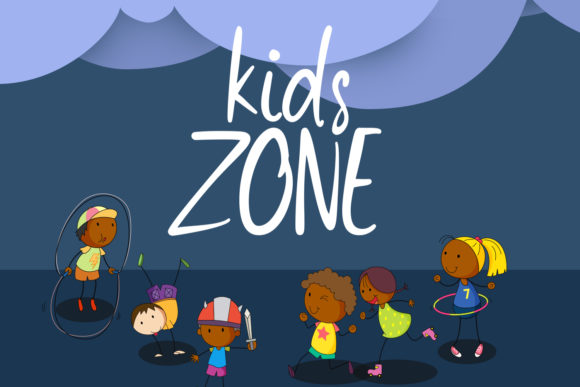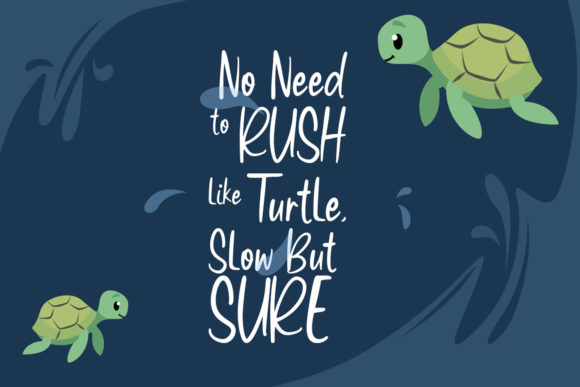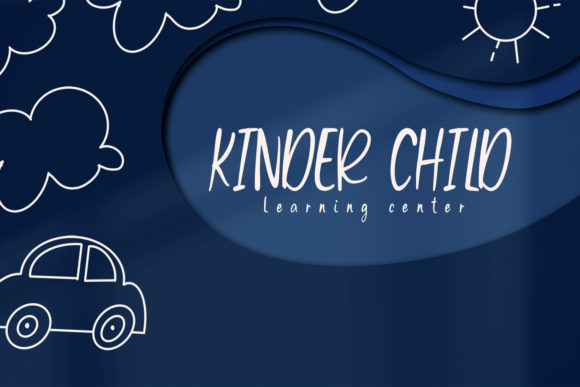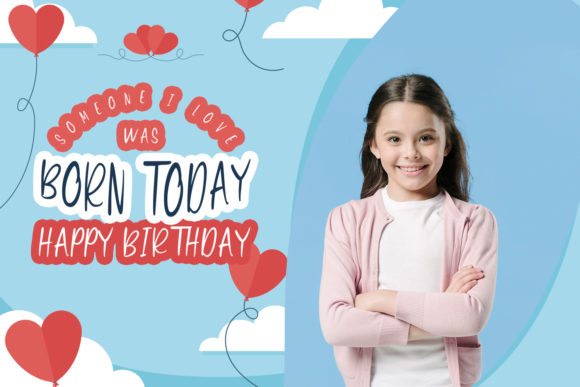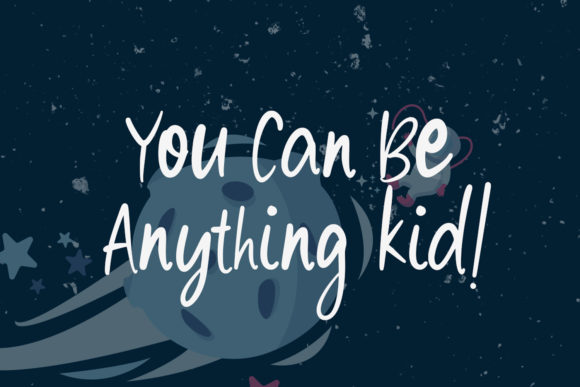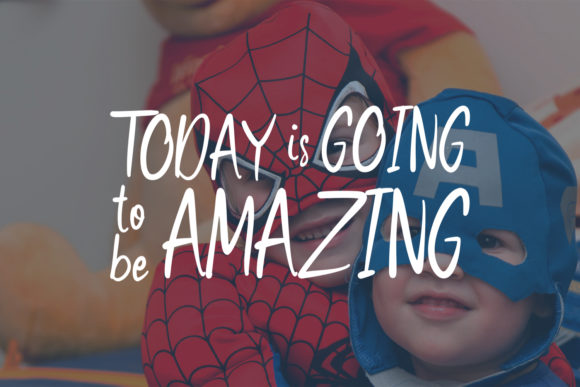
Introduction to Layer Kidos Font
Layer Kidos is a sweet and friendly display font.
Get creative with its childlike playfulness, and use it to brighten up any kids and school project .